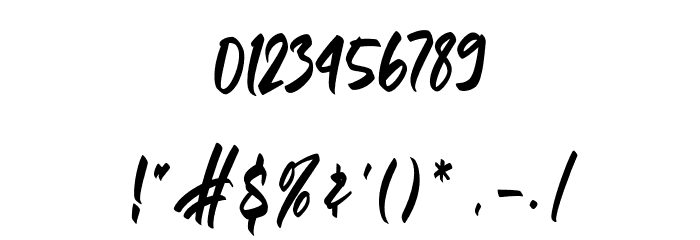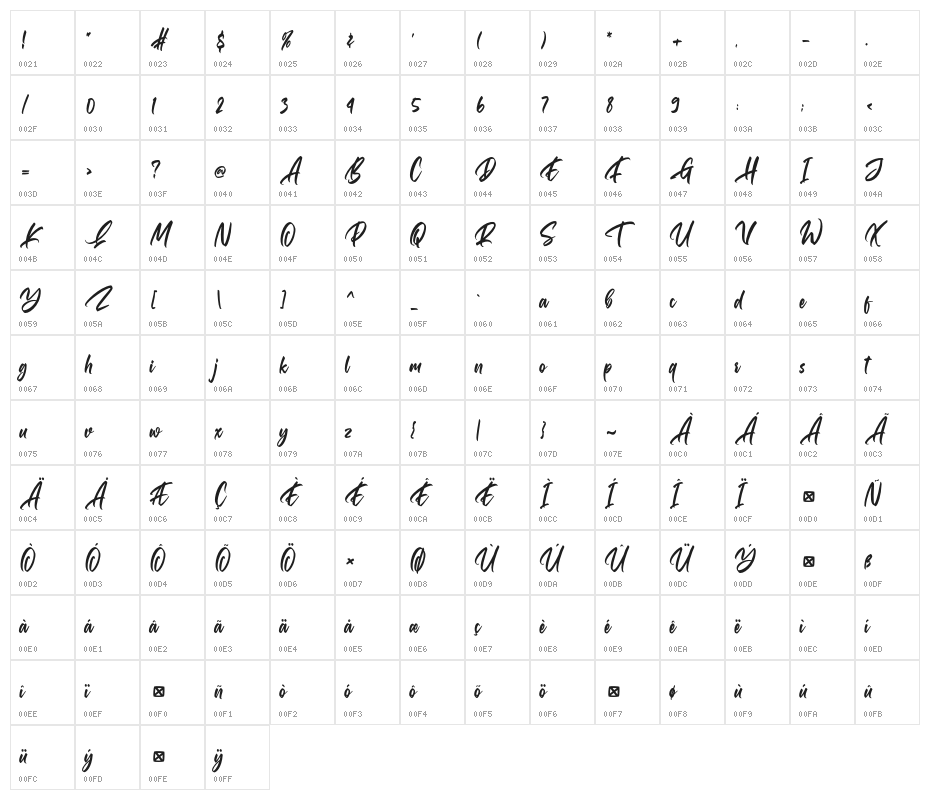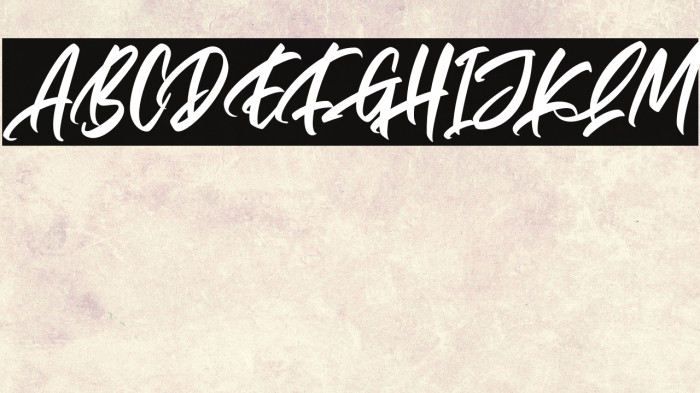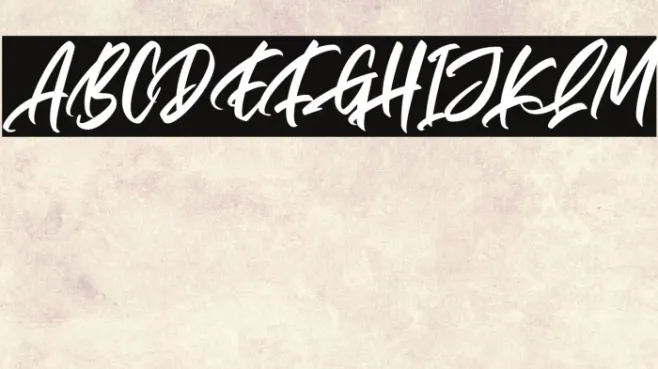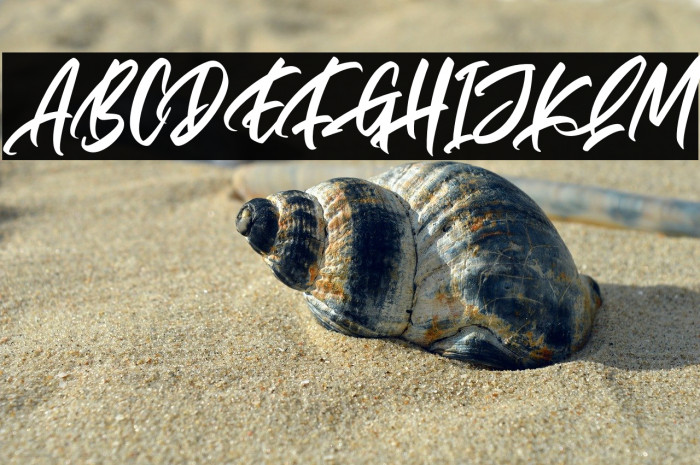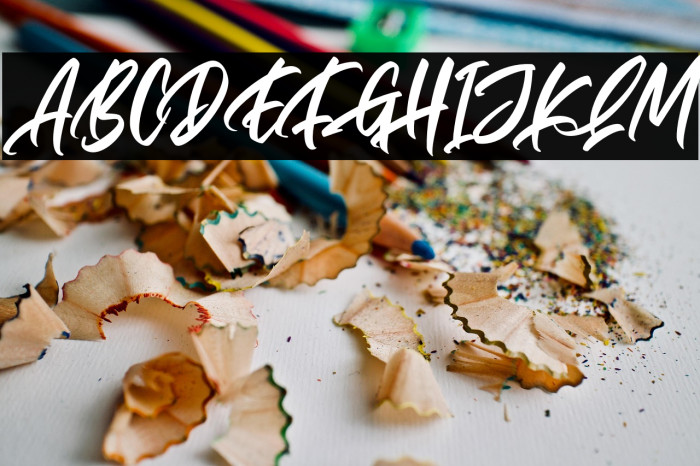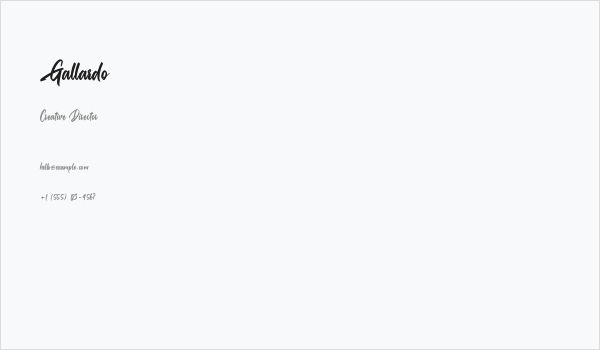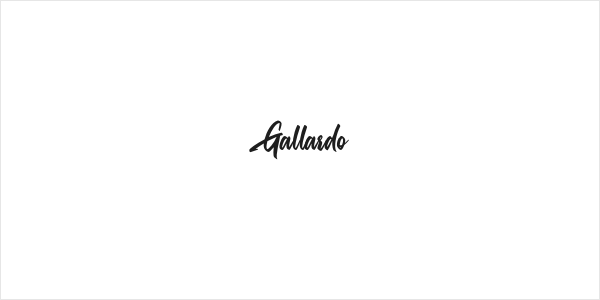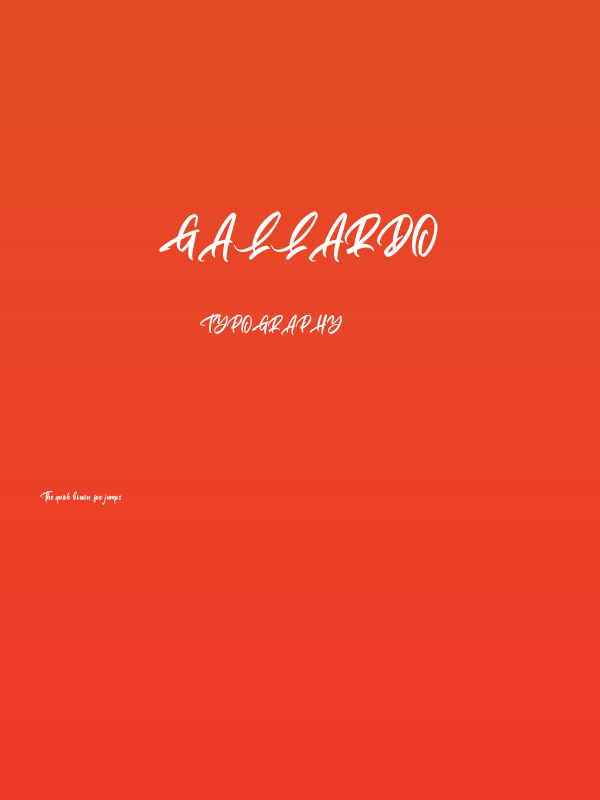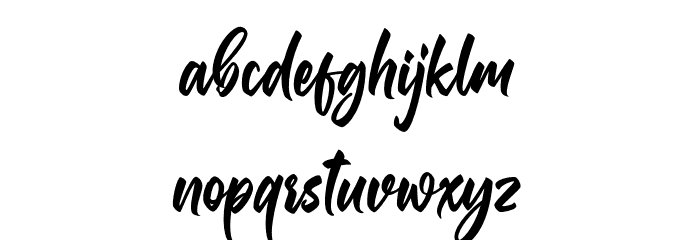
Gallardo Font
Gallardo Description
This font features a bold, flowing script style that exudes elegance and dynamism. The characters are interconnected, giving a sense of continuity and fluidity. The uppercase letters are particularly striking, with dramatic flourishes and a sense of movement. The lowercase letters maintain a consistent style, complementing the uppercase with their smooth curves and loops. Numbers and special characters are designed to match the overall aesthetic, ensuring a cohesive look across all text. This font is perfect for projects that require a touch of sophistication and flair.
| Overall Style | Elegant, Dynamic |
| Proposed Projects | Ideal for wedding invitations, branding, logos, and elegant packaging designs. |